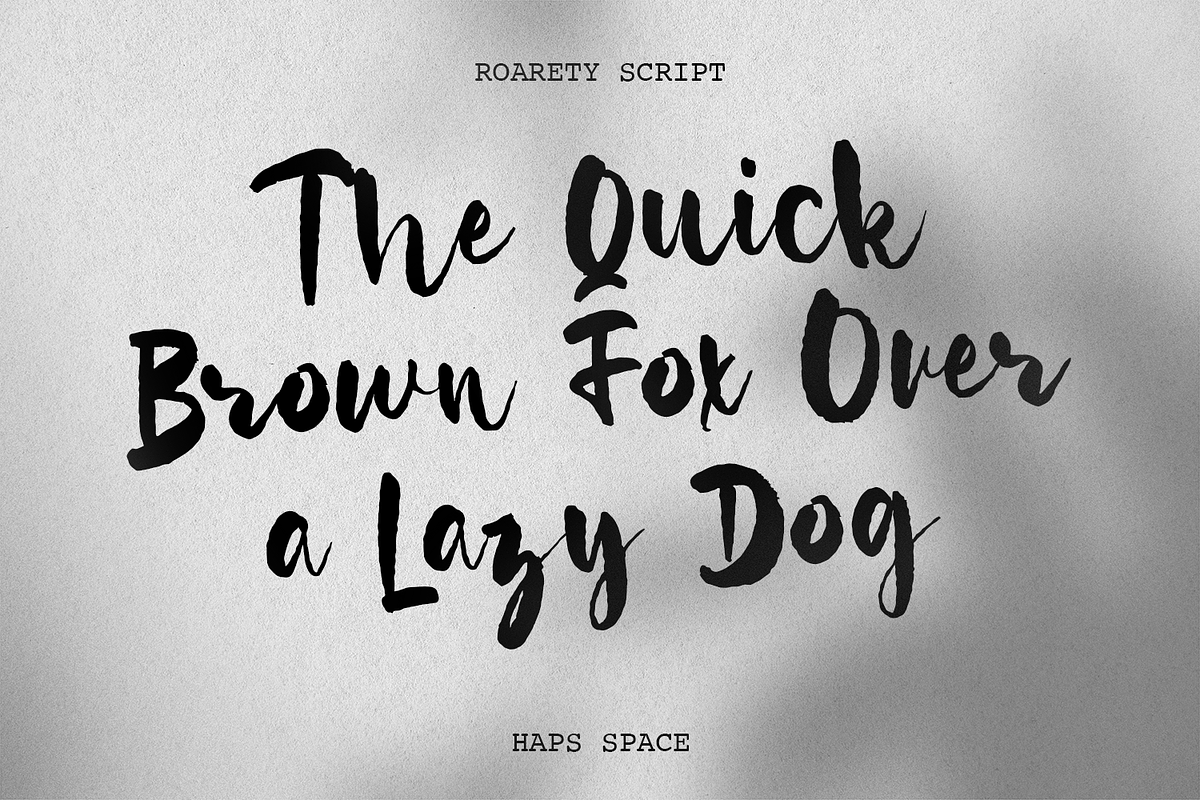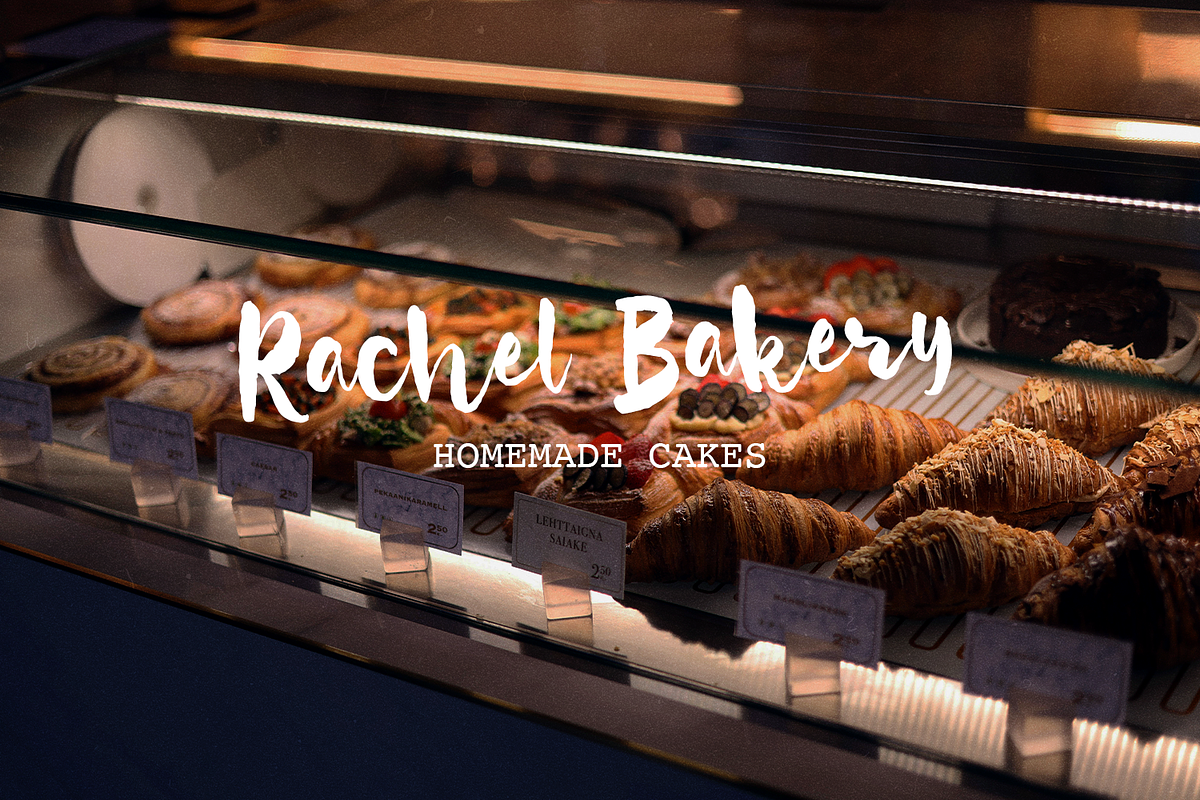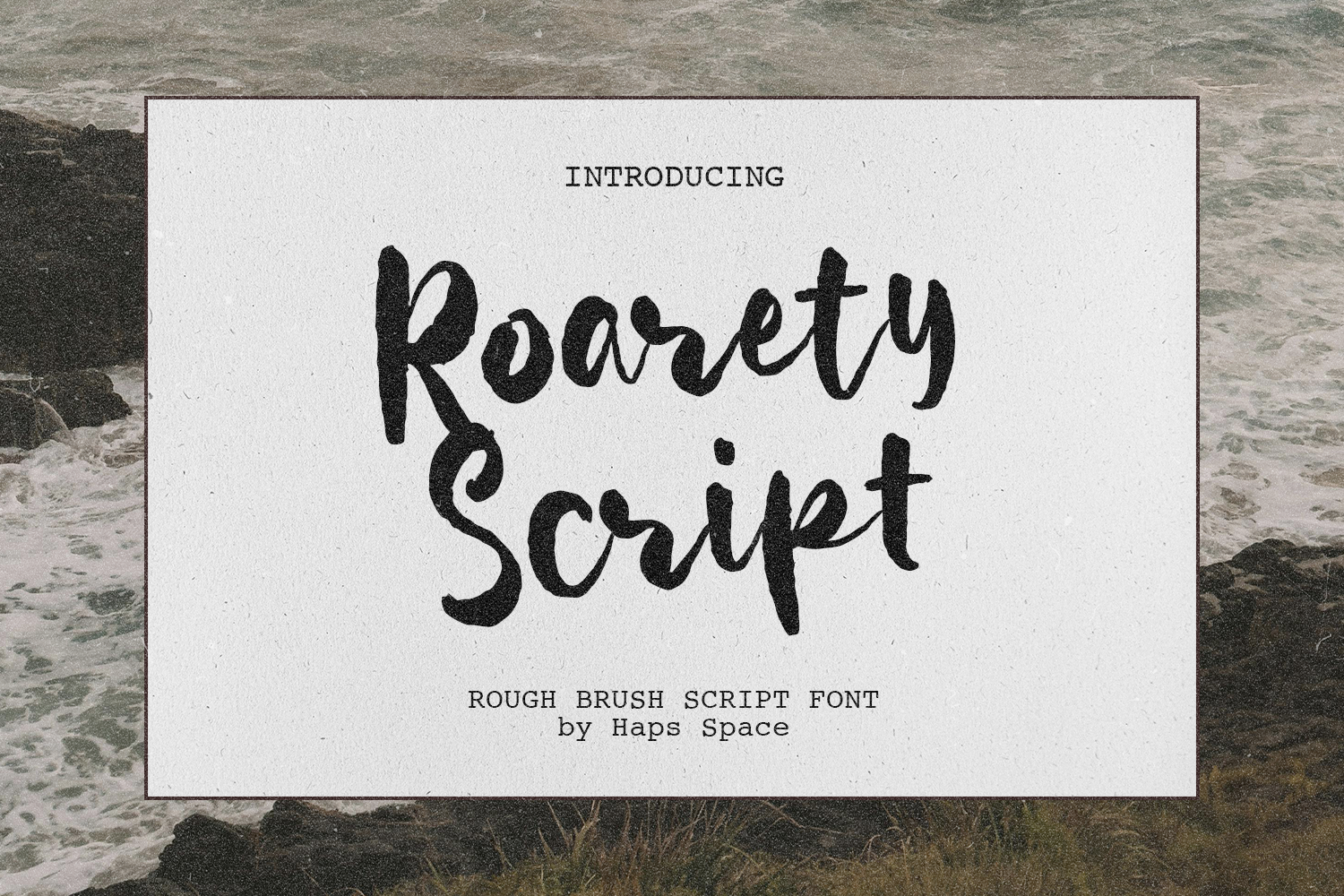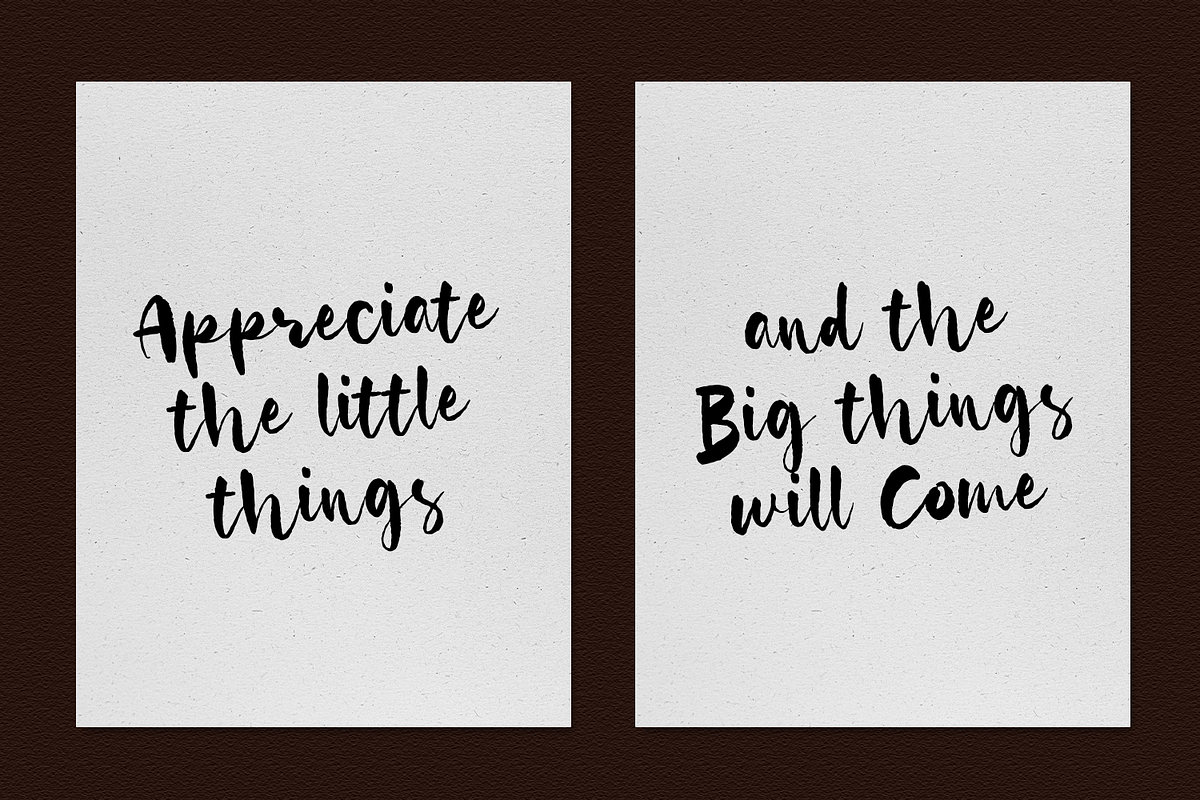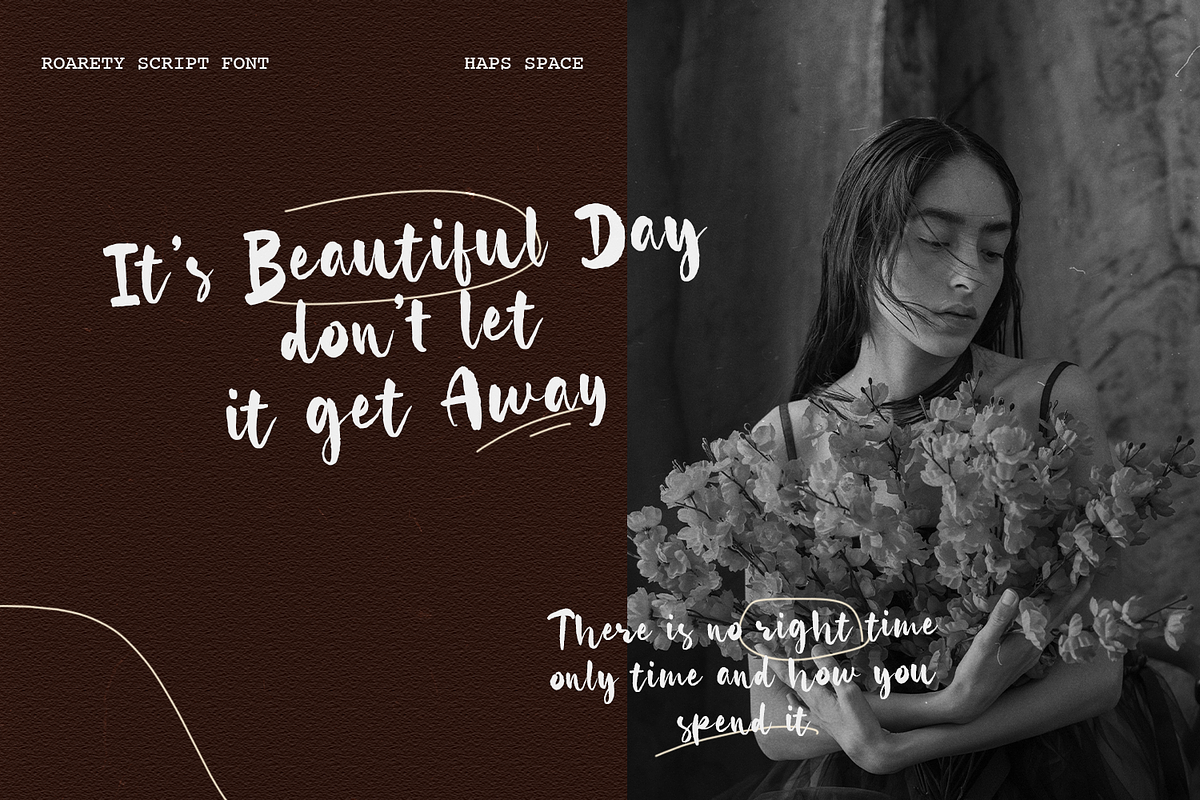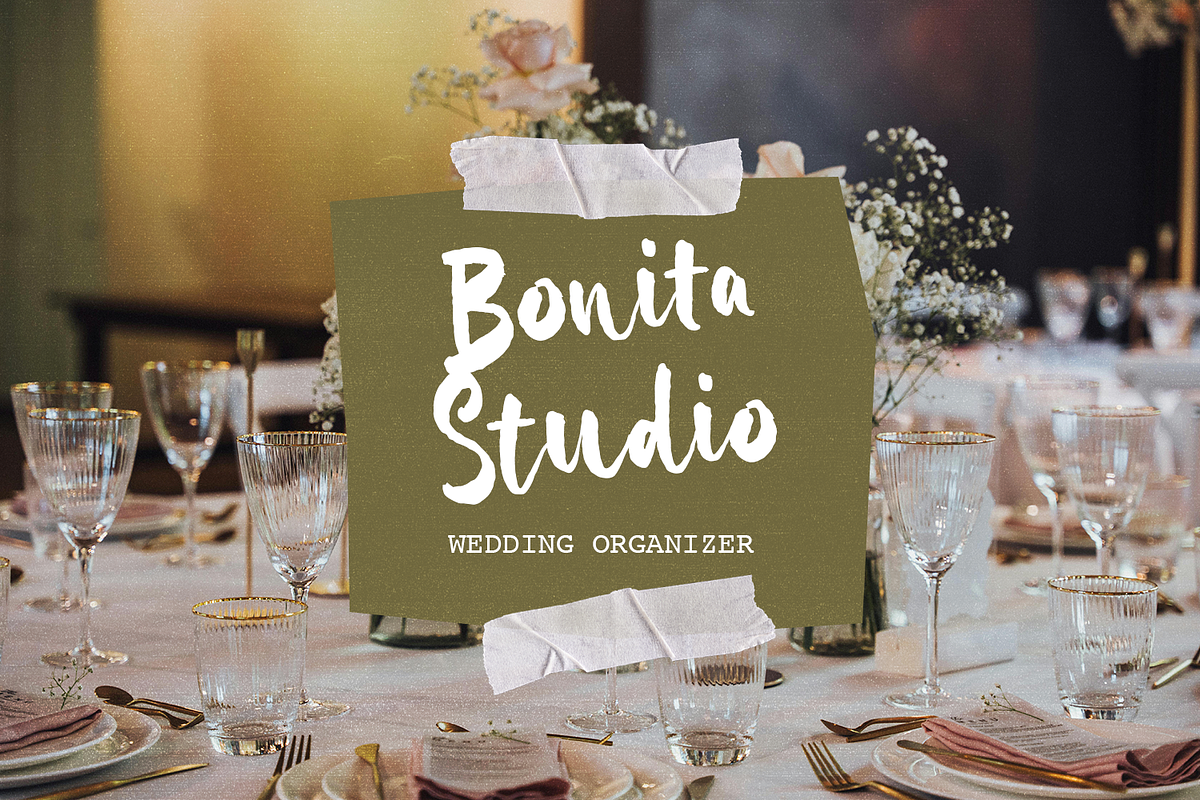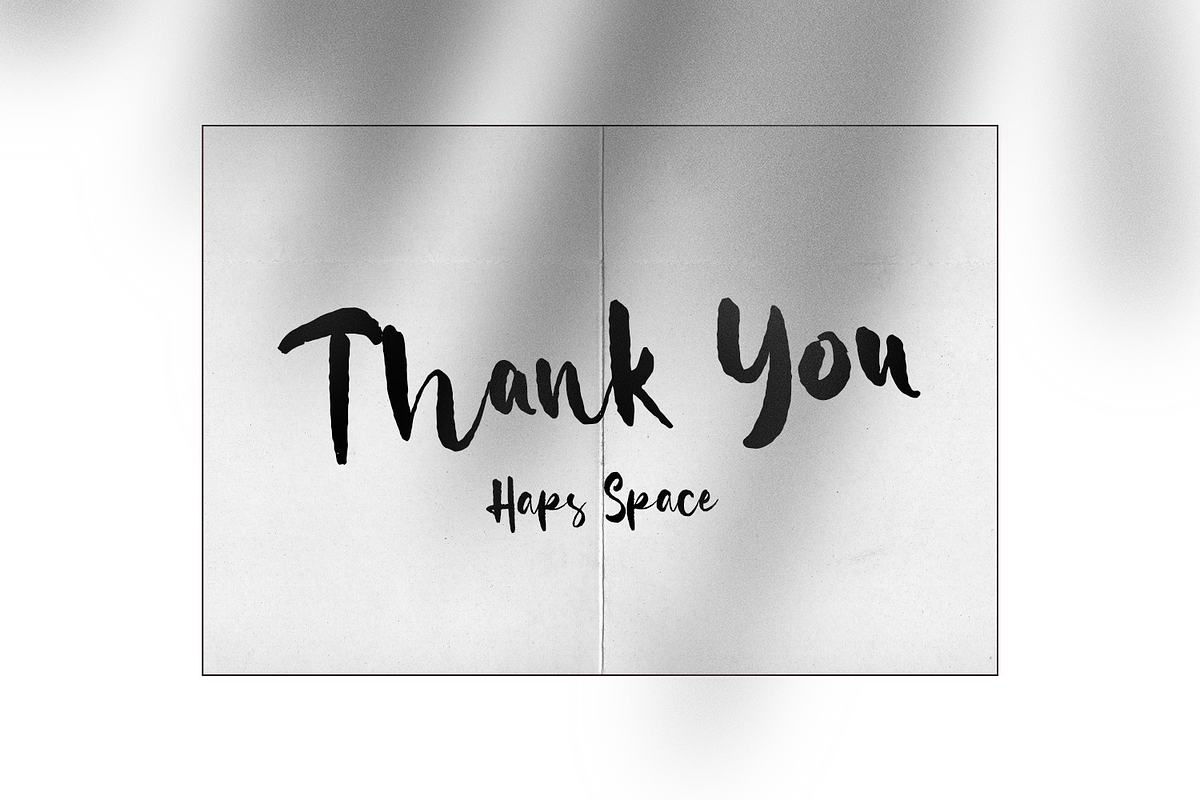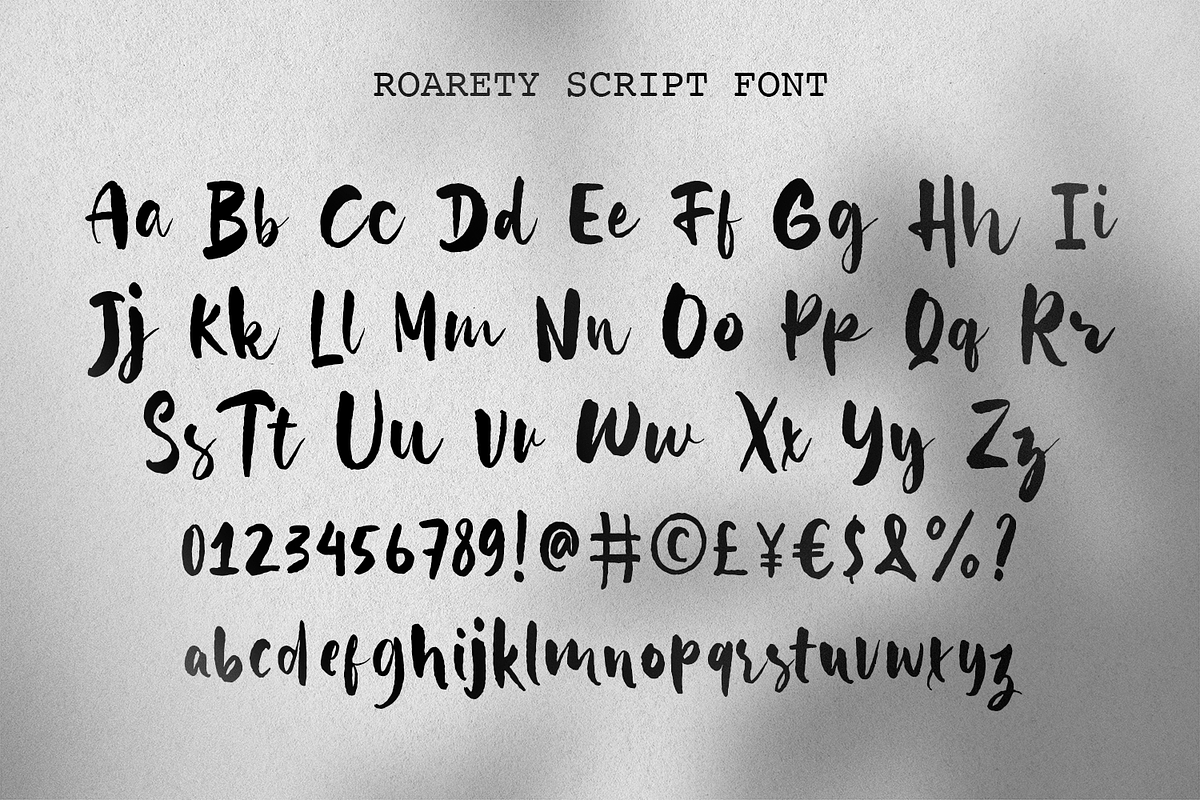
Roarety - Rough Script Font
Roarety Rough Script is a bold and expressive brush script font with a textured, hand-drawn aesthetic. Its rough edges and dynamic strokes bring a sense of energy and authenticity, making it perfect for designs that require a raw, handcrafted touch.
Ideally suited for branding, packaging, logotypes, editorial layouts, and social media graphics, making it an excellent option for both digital and printed creative works.
- Unique Letterforms